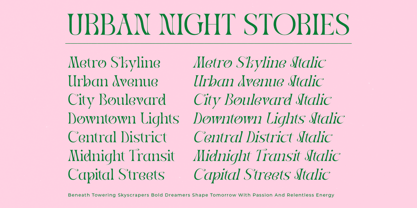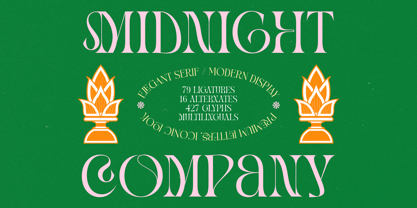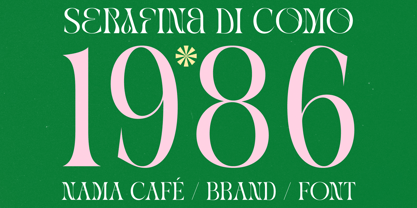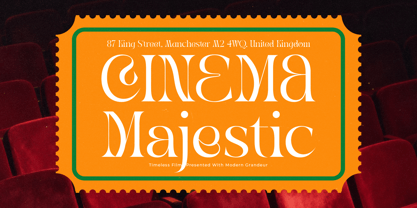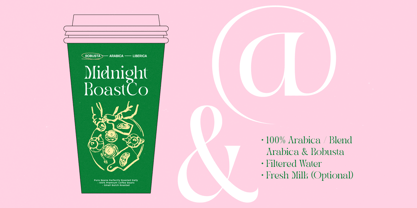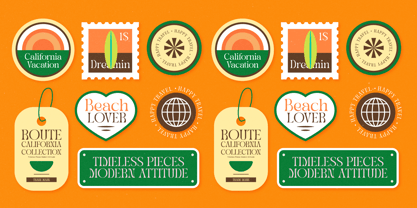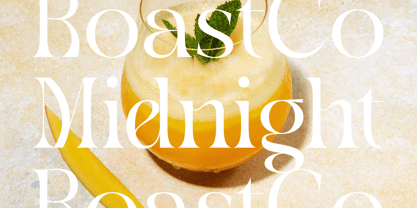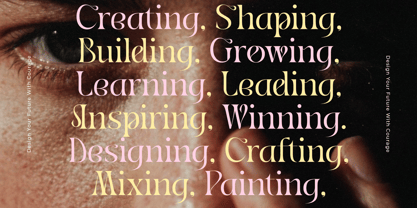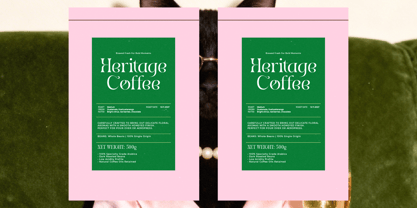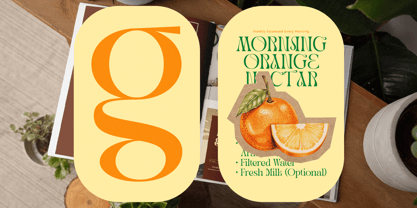
Midnight Company
by Timelesstype Studio
The Midnight Company Font Family was designed by Heru Utama Putra and published by Timelesstype Studio. Midnight Company contains 2 styles and family package options. More about this family
Midnight Company is an elegant modern serif display typeface designed to deliver refined sophistication with bold visual impact. Combining graceful curves, high-contrast strokes, and distinctive ligature details, this font balances timeless elegance with contemporary styling. With 79 ligatures, 16 alternates, and 427 glyphs including multilingual support, Midnight Company offers creative flexibility for crafting expressive and memorable typography. Perfect for luxury branding, editorial headlines, fashion campaigns, cosmetic packaging, premium logos, and high-end visual identities, this typeface brings a confident, artistic presence to both print and digital applications. Midnight Company is built for designers who seek elegance, character, and strong typographic personality in one cohesive display font.